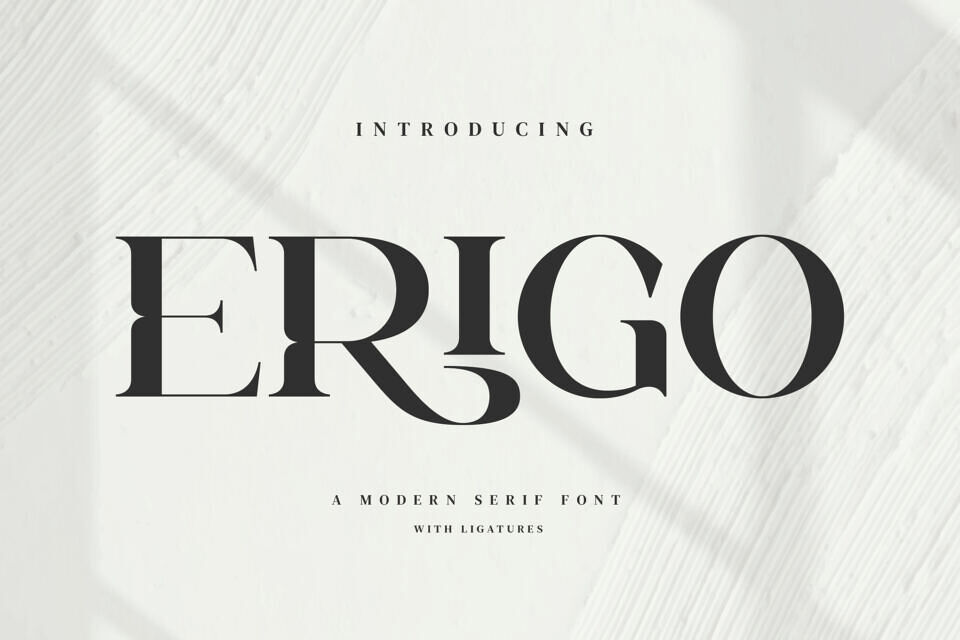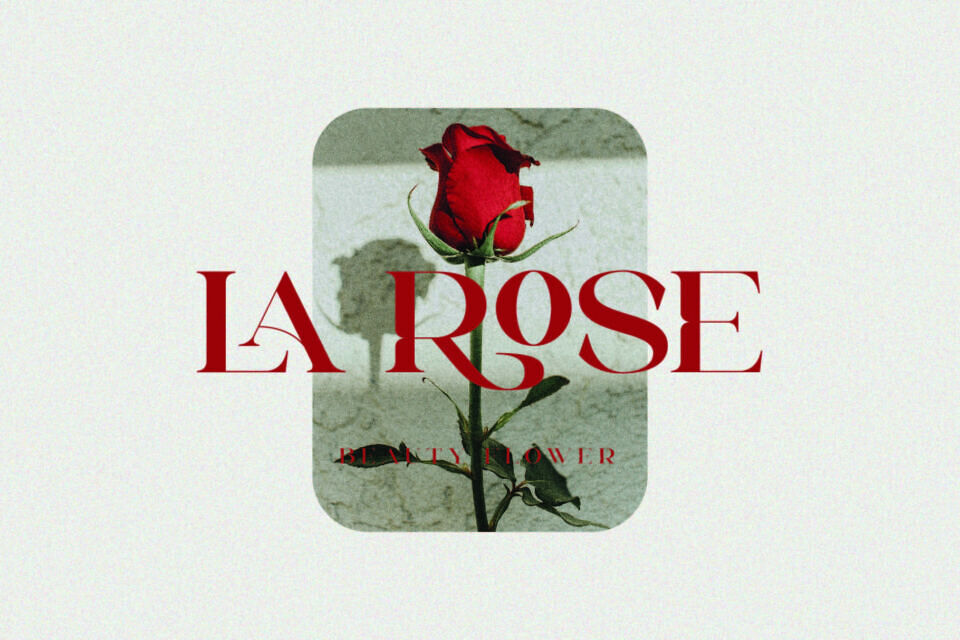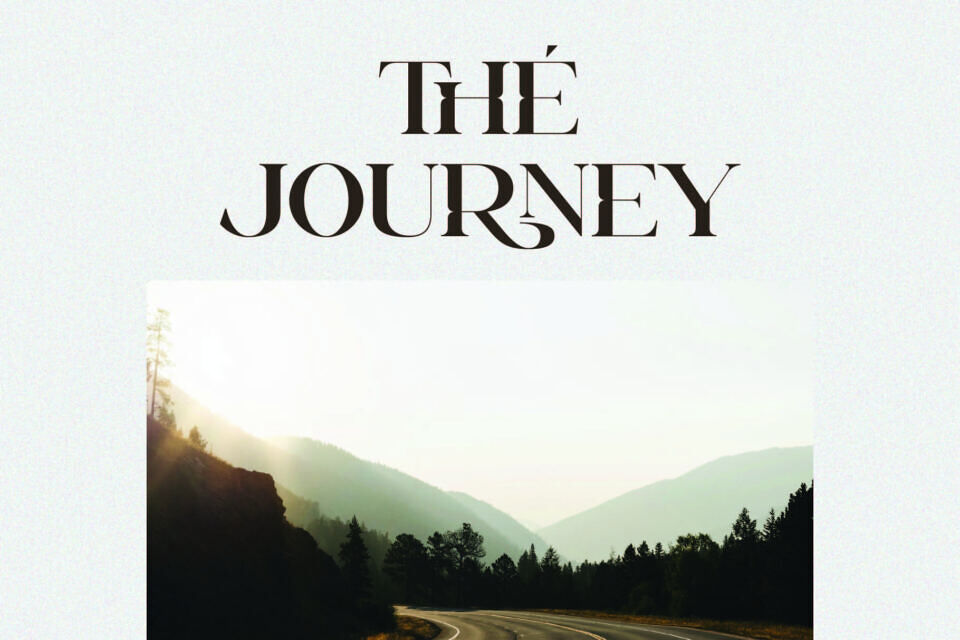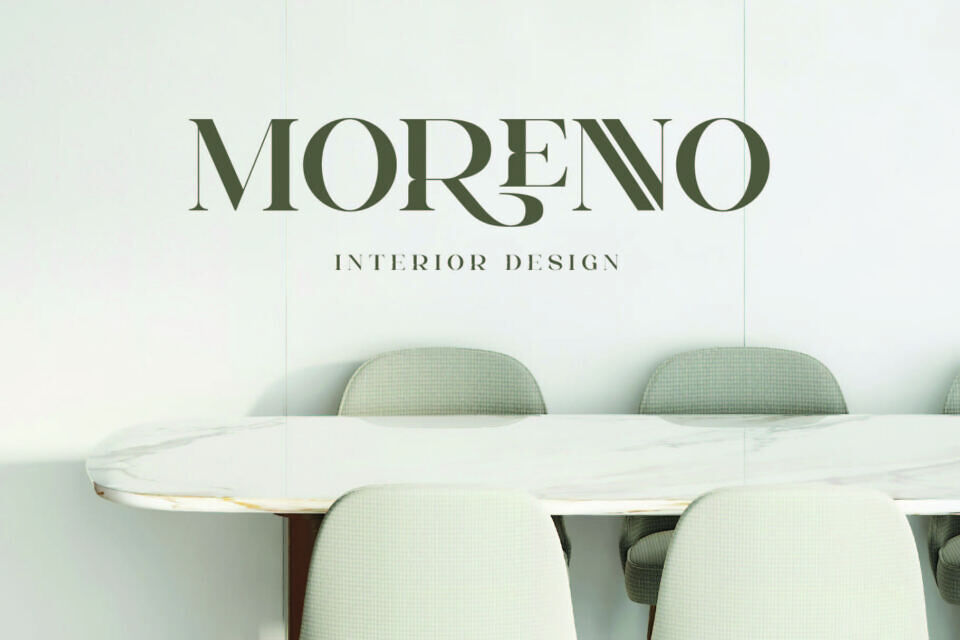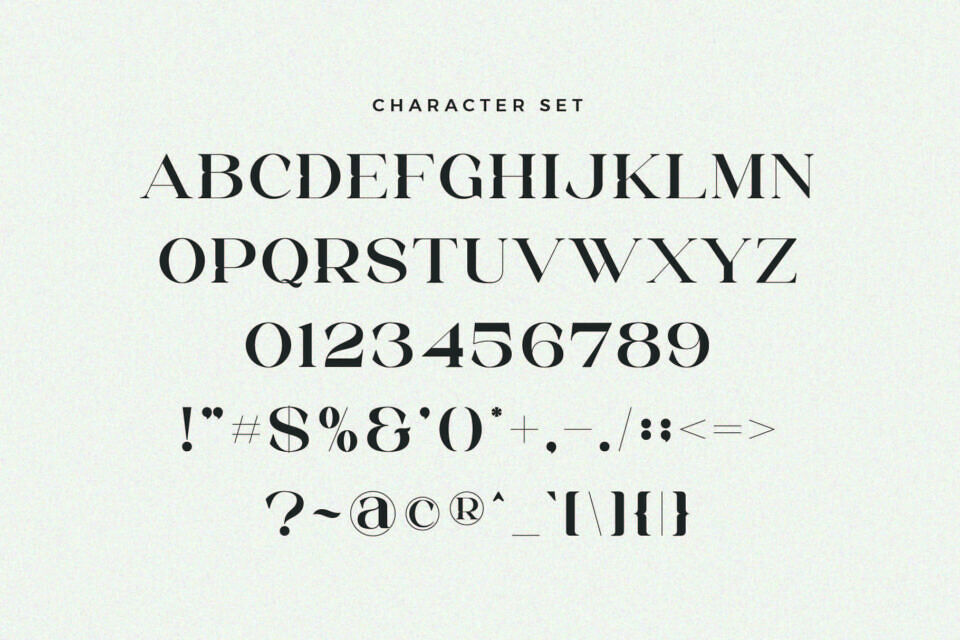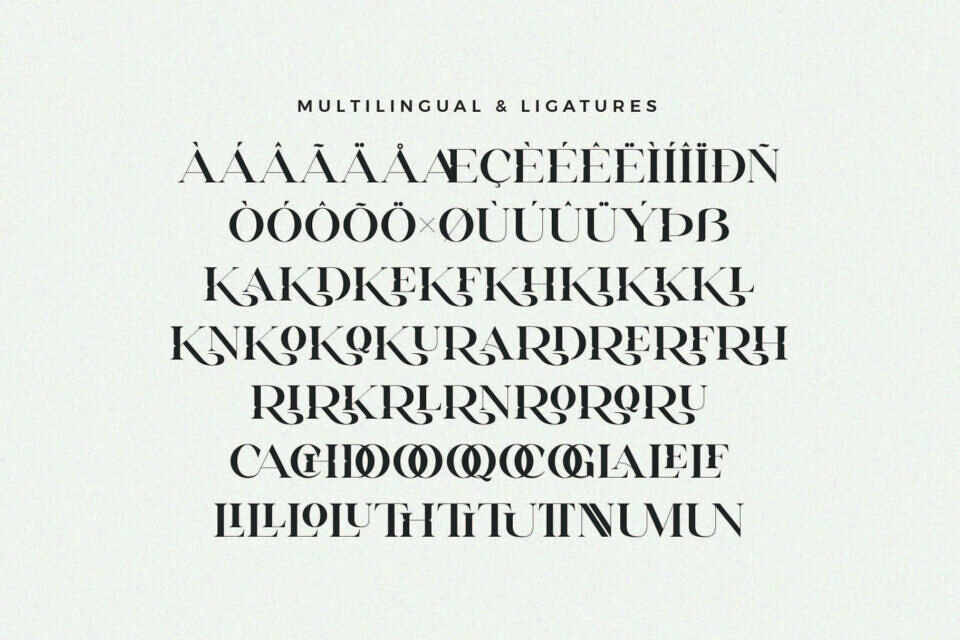
Erigo Font
The Erigo typeface is a stylish, minimalist-inspired design, ideal for creating templates, brochures, videos, and advertising materials, including logos and branding. Its simplicity makes it perfect for various design purposes.